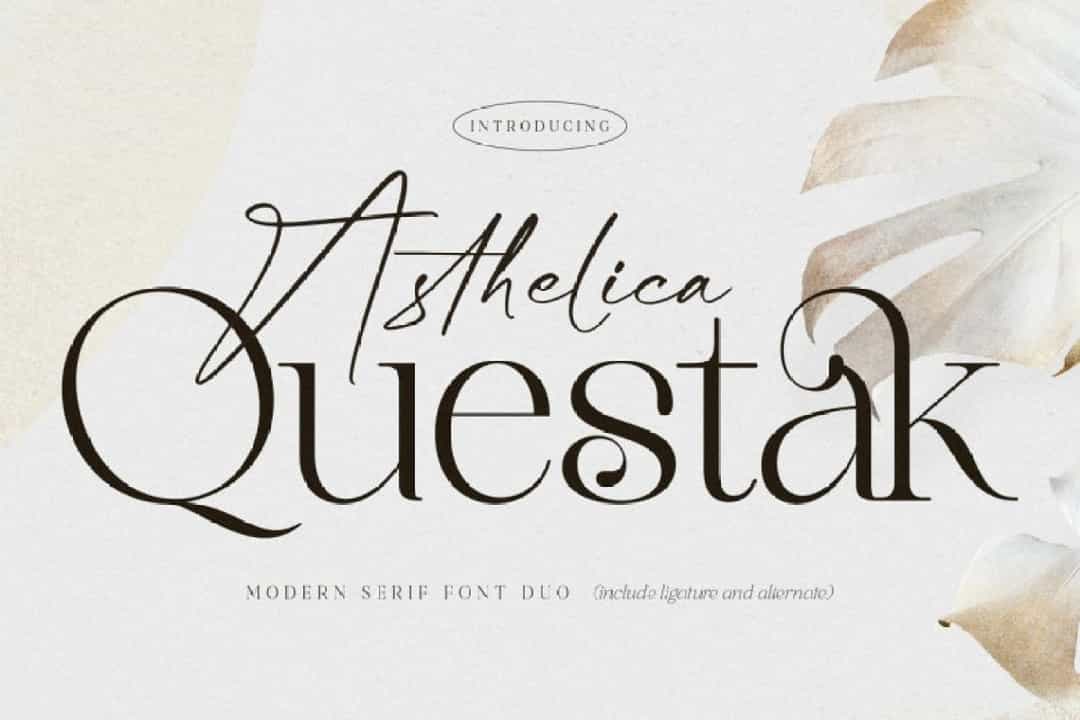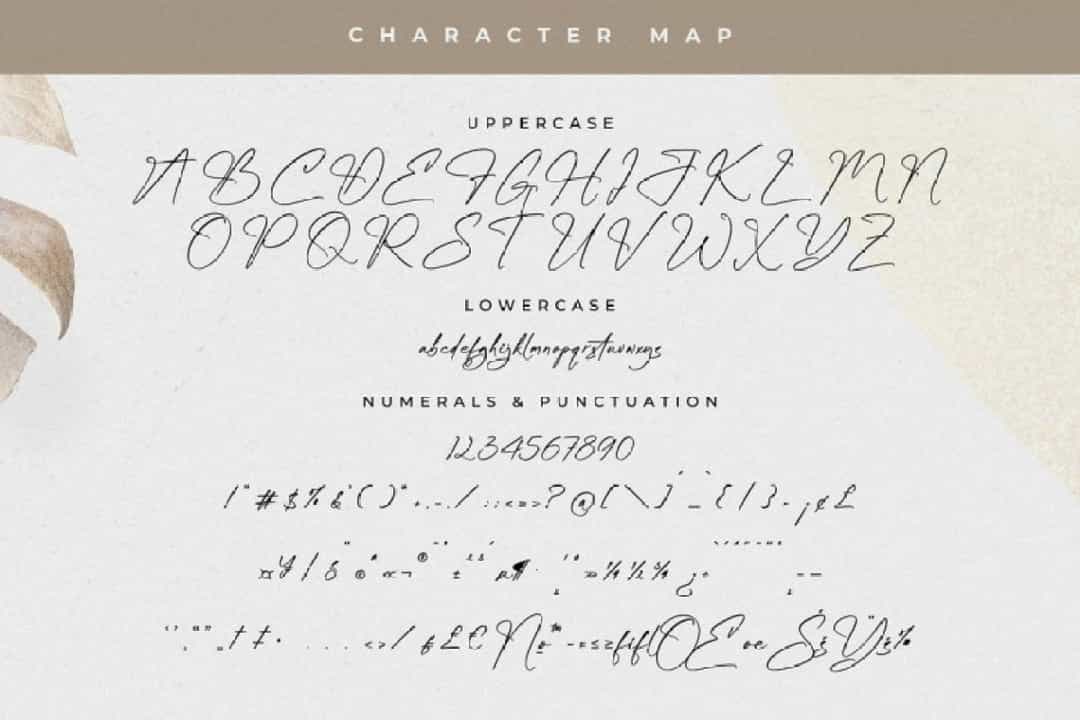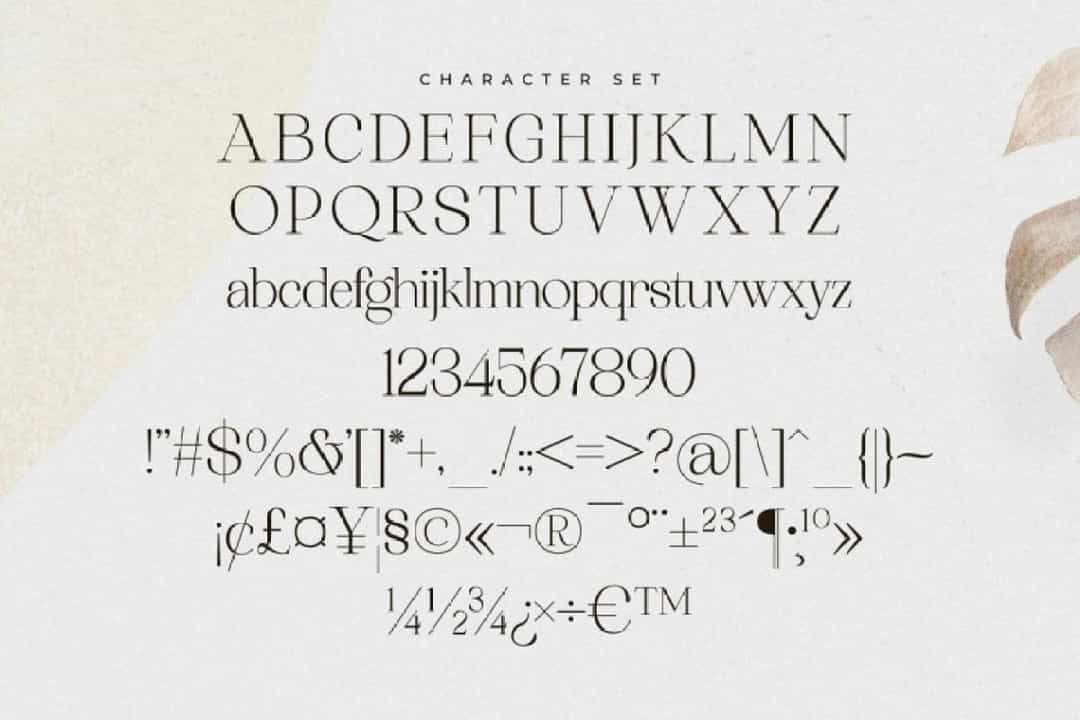
Asthelica Questak Font Duo is an elegant script and serif font with contemporary appeal, perfect for use in creating classy logos, movie or book name designs, fashion brand clothing labels, magazine letters, quotes and much more. PUA coded, it grants access to its extensive array of symbols and ligatures quickly!